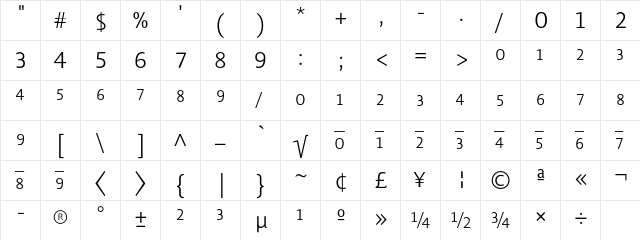
Lisboa Expert Light Regular
Design Context for Lisboa Expert Light Typeface
Lisboa Expert Light takes a measured approach to typography — its balanced proportions and neutral character make it a reliable workhorse for both digital and print work. The delicate stroke weight brings airiness and refinement to layouts.